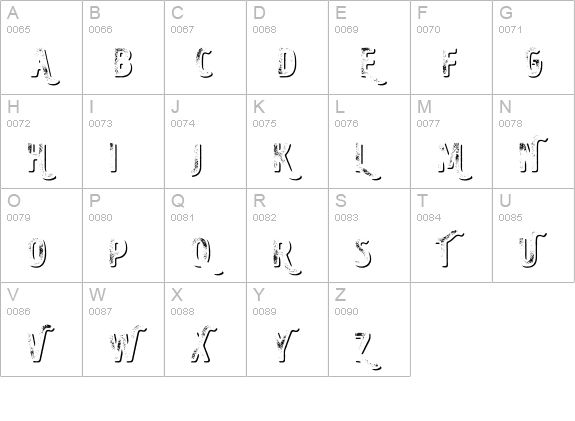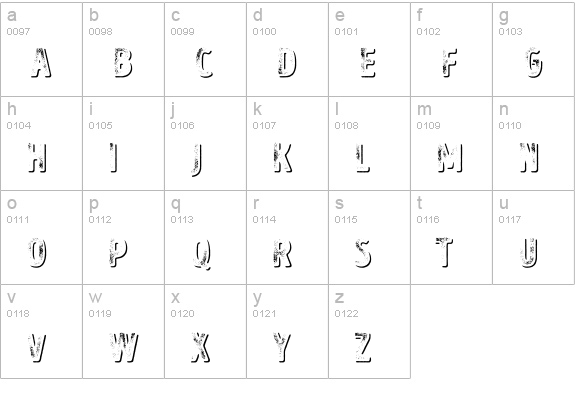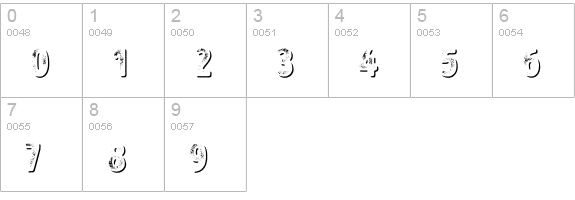
Intro Head H UC G Shade Font Details
The Intro Head H UC G Shade font is a stunning display typeface that exudes elegance and sophistication. Its intricate details and bold design make it perfect for creating eye-catching headlines and titles. This font is versatile and can be used for a variety of projects, from branding to editorial design. Best of all, the Intro Head H UC G Shade font is available for free download at FontsMarket.com. This means you can easily access this high-quality font without any cost, making it a valuable addition to your font library. Don't miss out on the opportunity to enhance your designs with this exquisite typeface - download it today and elevate your creative projects to the next level.